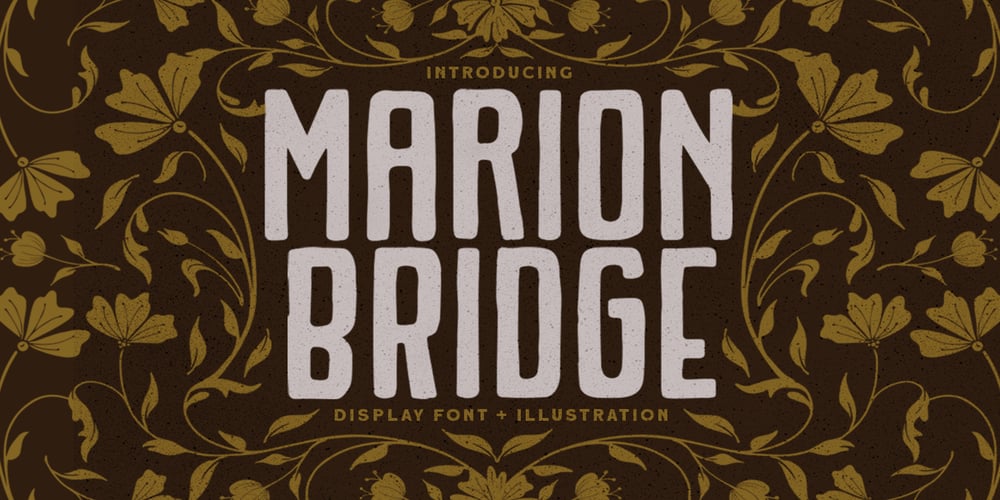
Marion Bridge Font Family was designed by Hendry Juanda and published by Letterhend. Marion Bridge contains 1 styles and family package options. Marion Bridge is a vintage display typeface with the touch of nostalgic feel. The strong and bold looks make this font standout to be used as a title or a logo.This font perfectly made to be applied especially in logo, and the other various formal forms such as invitations, labels, magazines, books, greeting / wedding cards, packaging, fashion, make up, stationery, novels, labels or any type of advertising purpose.Features : Numbers and punctuation multilingual PUA encoded We highly recommend using a program that supports OpenType features and Glyphs panels like many of Adobe apps and Corel Draw, so you can see and access all Glyph variations.